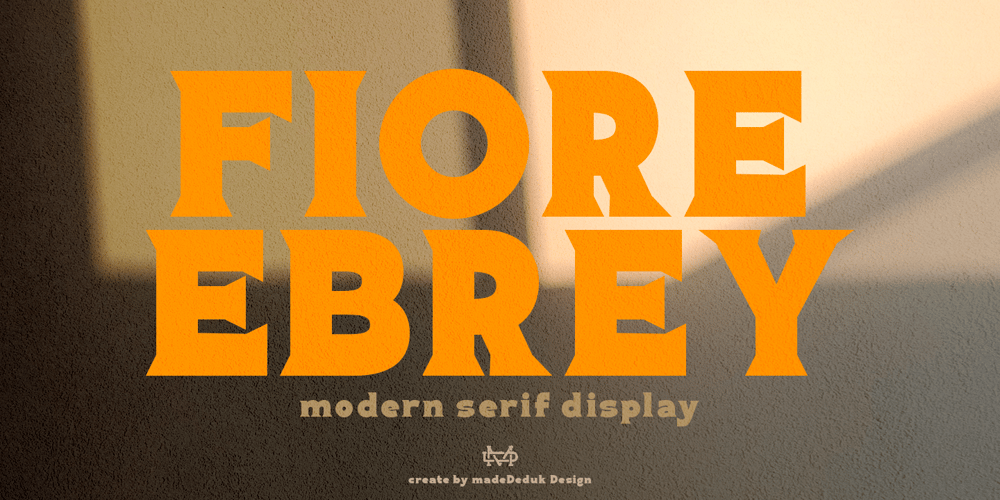
Fiore Ebrey Font Family was designed by madededuk and published by madeDeduk. Fiore Ebrey contains 2 styles and family package options. Fiore Ebrey is a serif display, come with single weight, legible and expressive shapes. A lot of stylish alternates characters and ligature will makes this font suitable for your any project design.Feature Uppercase & Lowercase Number & Symbol International Glyphs Multilingual support Alternative ligature Hope you enjoy it.